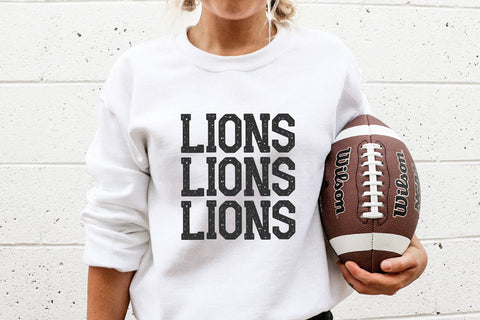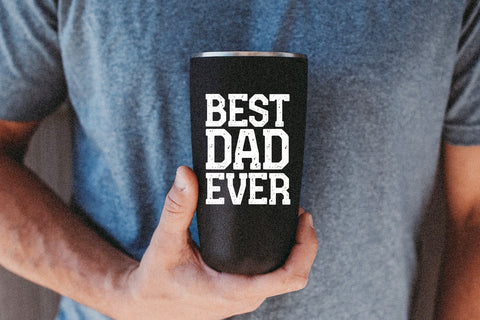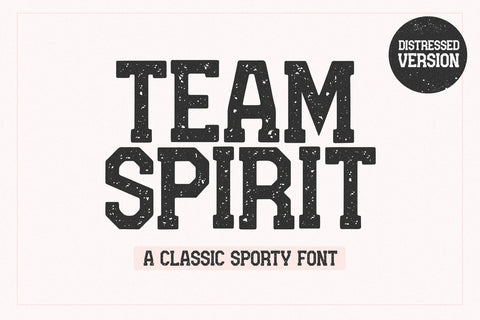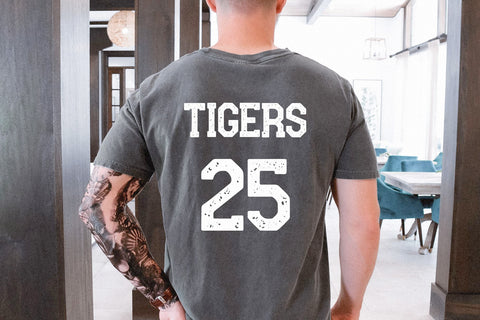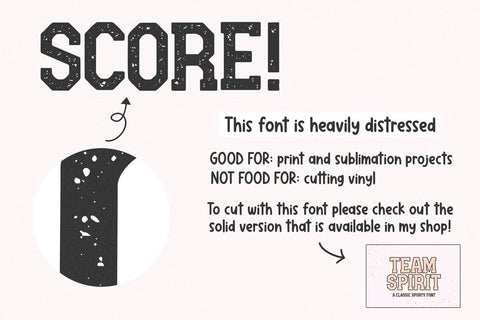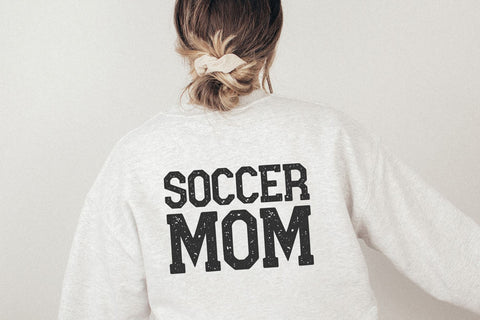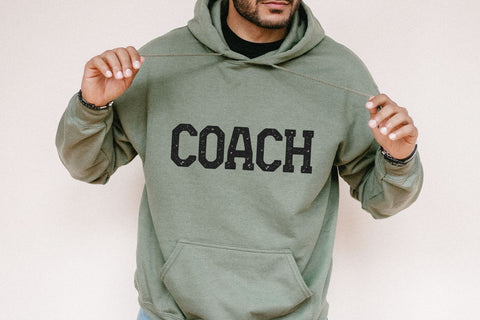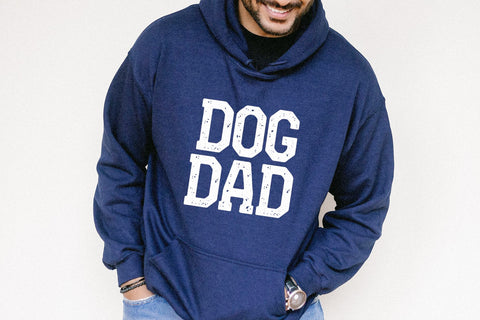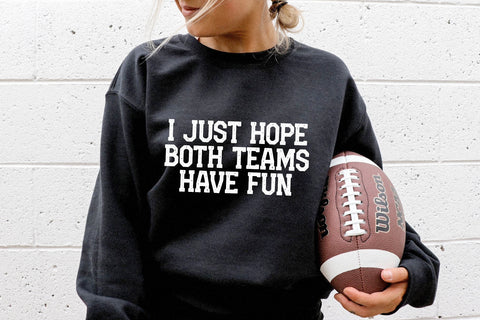
Team Spirit - Distressed Sports Font
Team Spirit is a sporty retro font - *DISTRESSED VERSION*
This font is perfect for shirts, mugs, sublimation designs, logos, quotes, packaging, stickers and more!
***IMPORTANT*** This is a heavily distressed font.
This font is good for creating print, web and sublimation designs.
This font is NOT good for cutting machines.